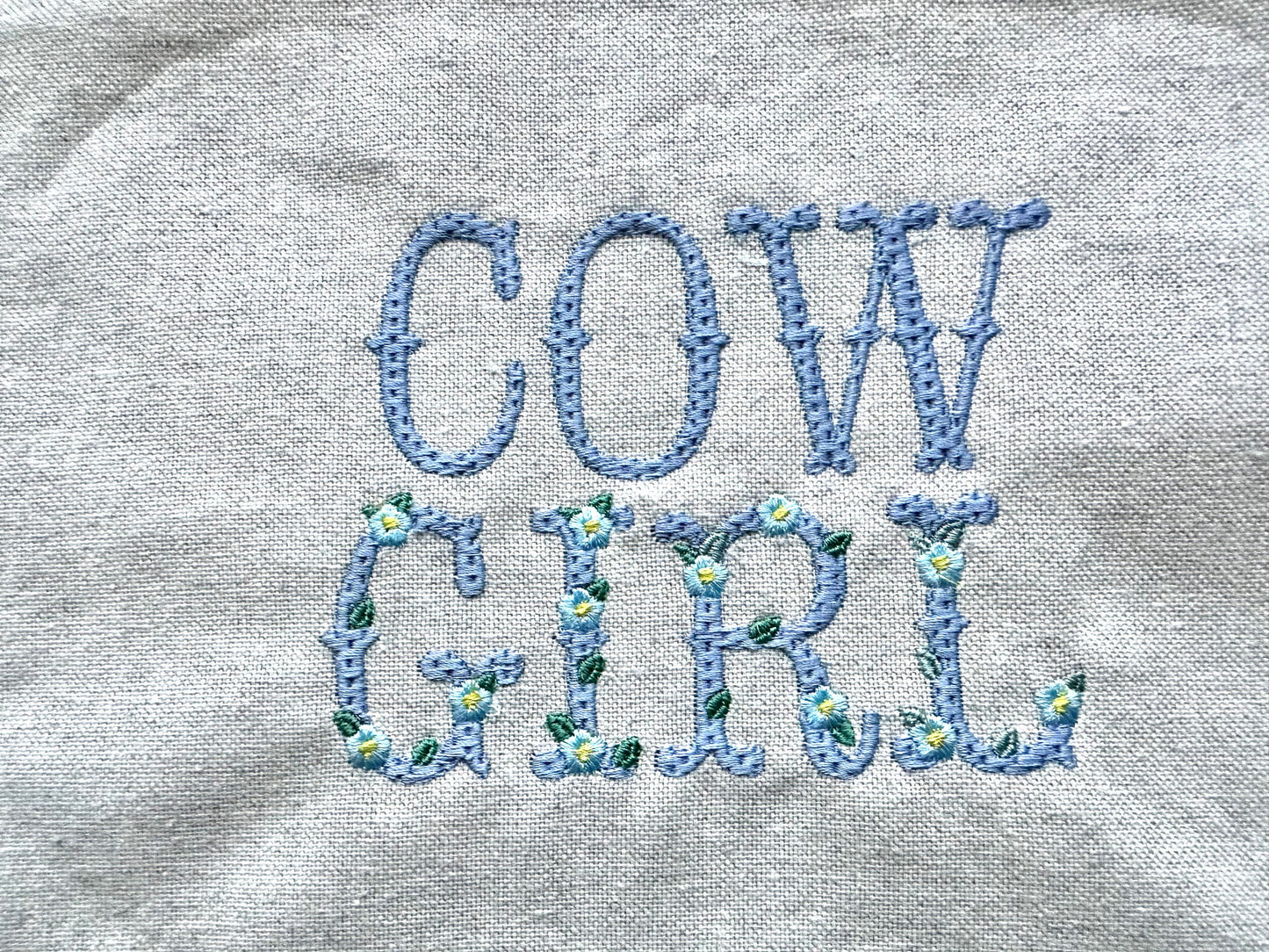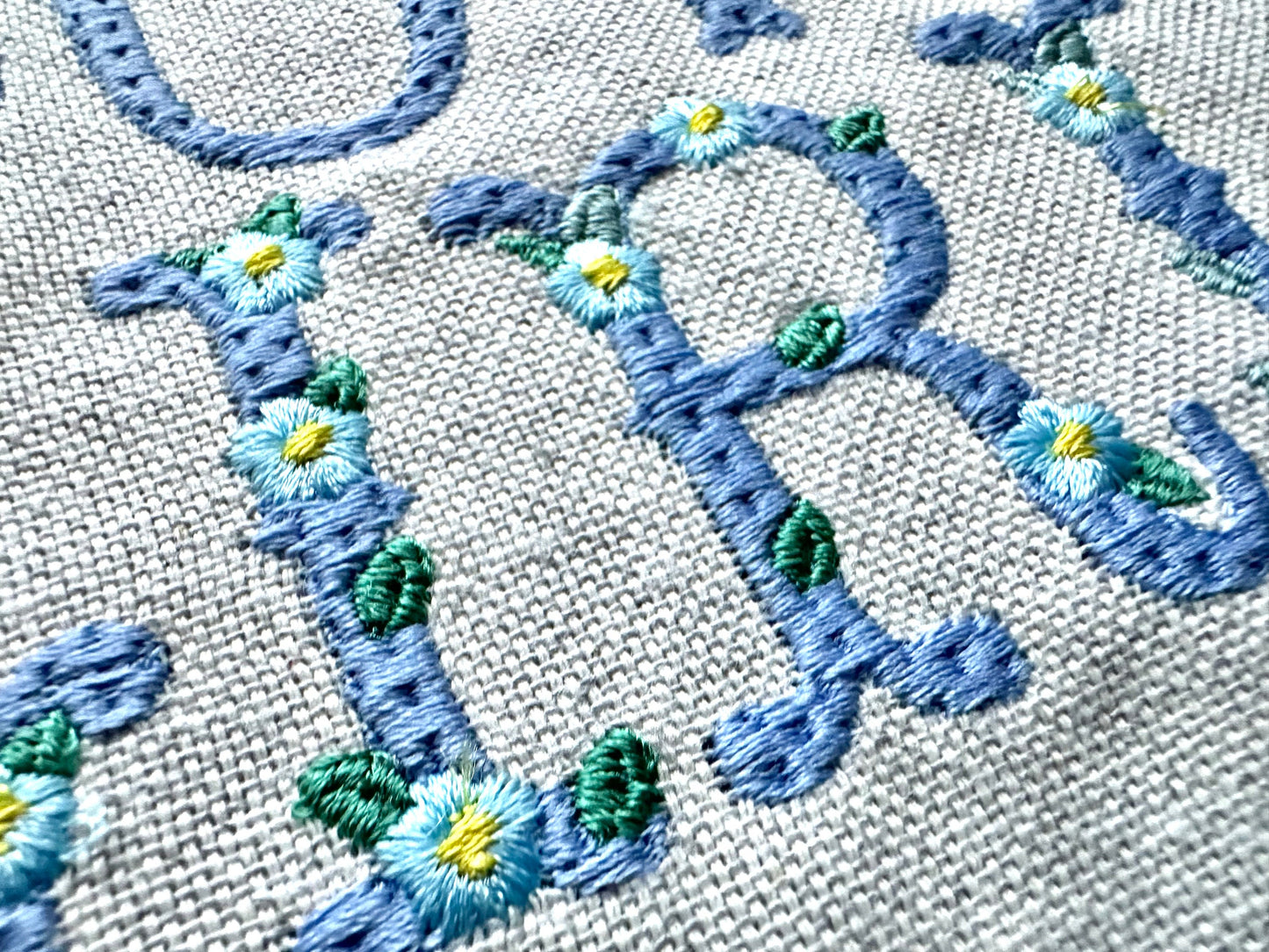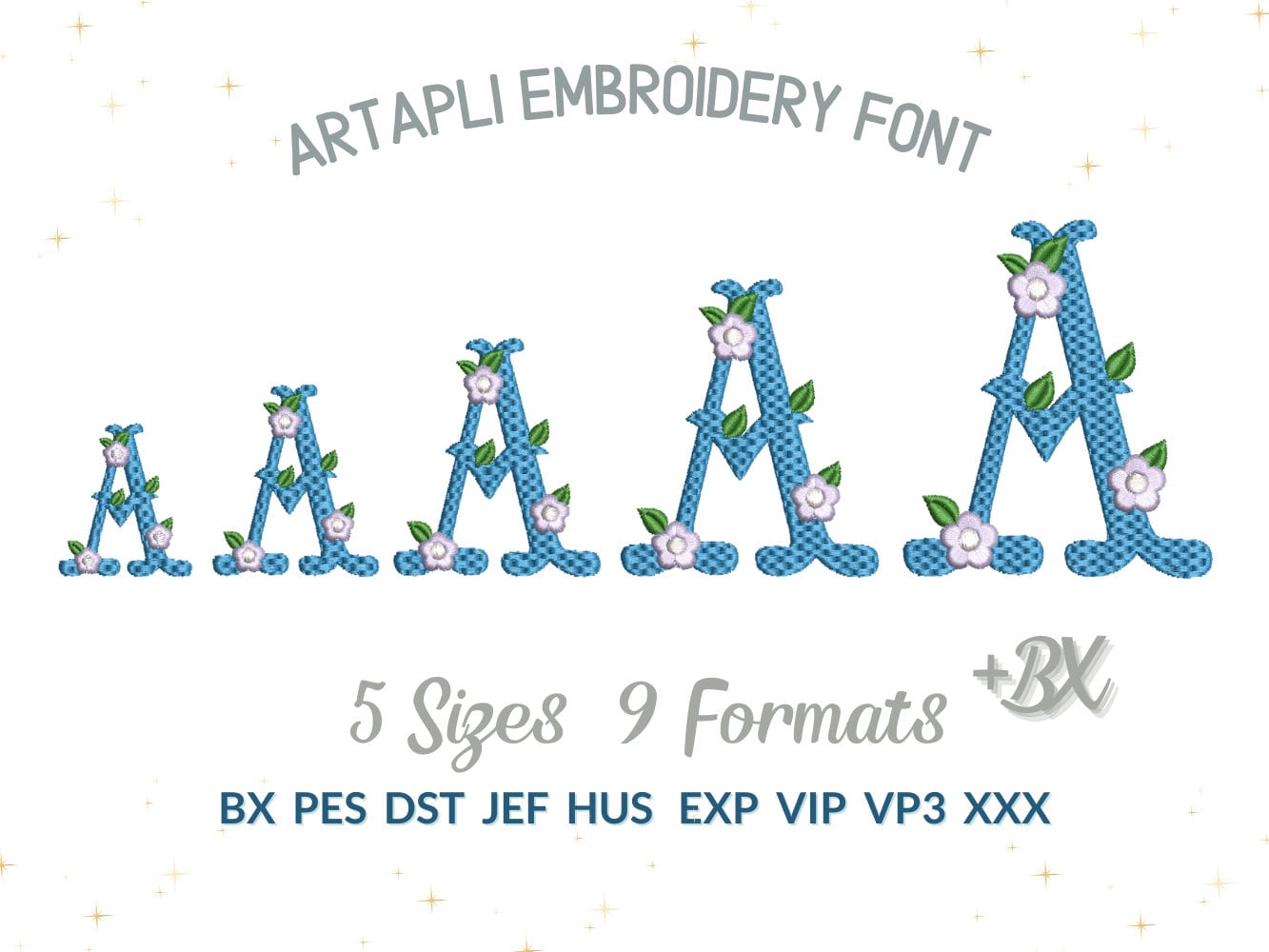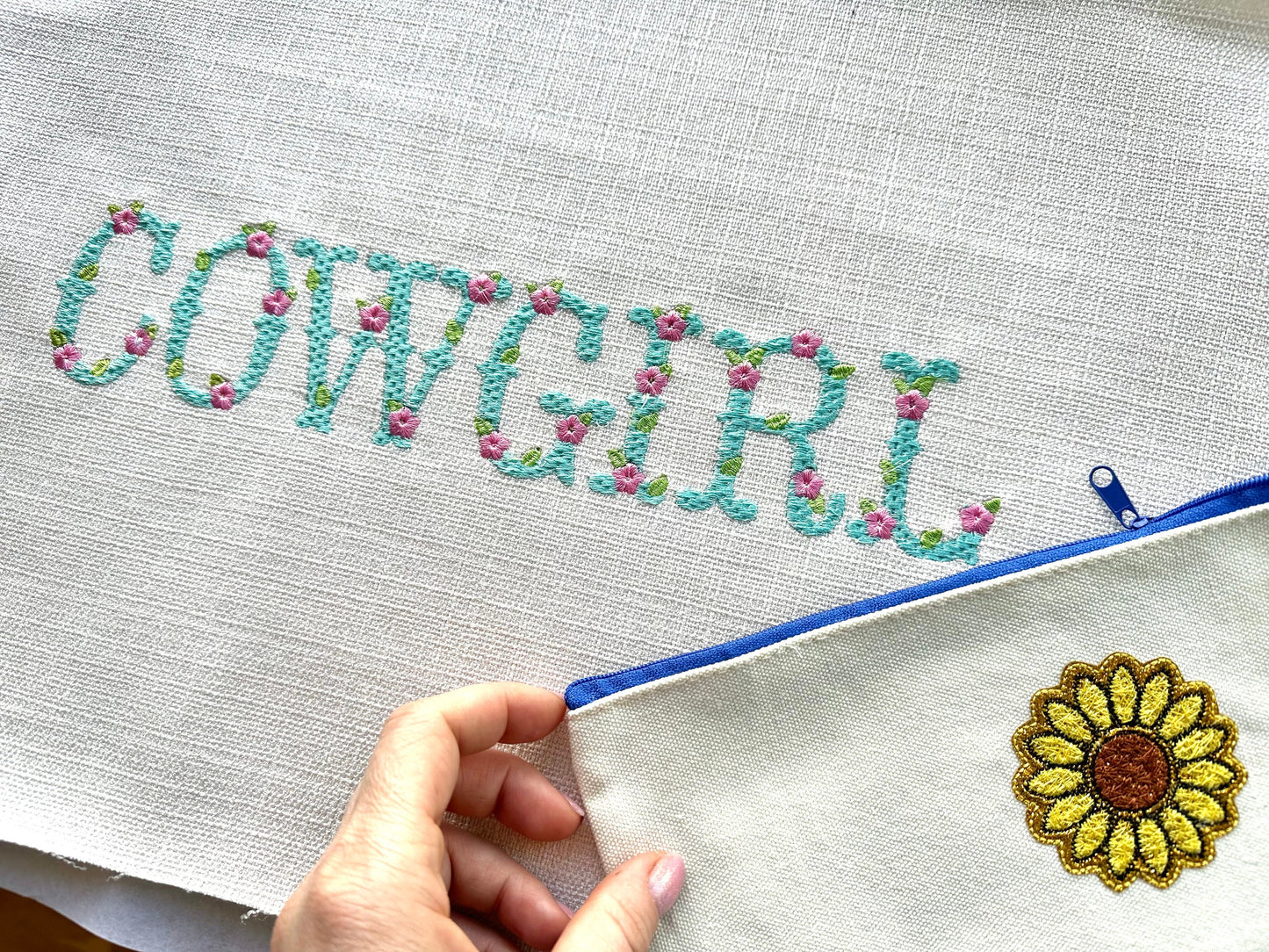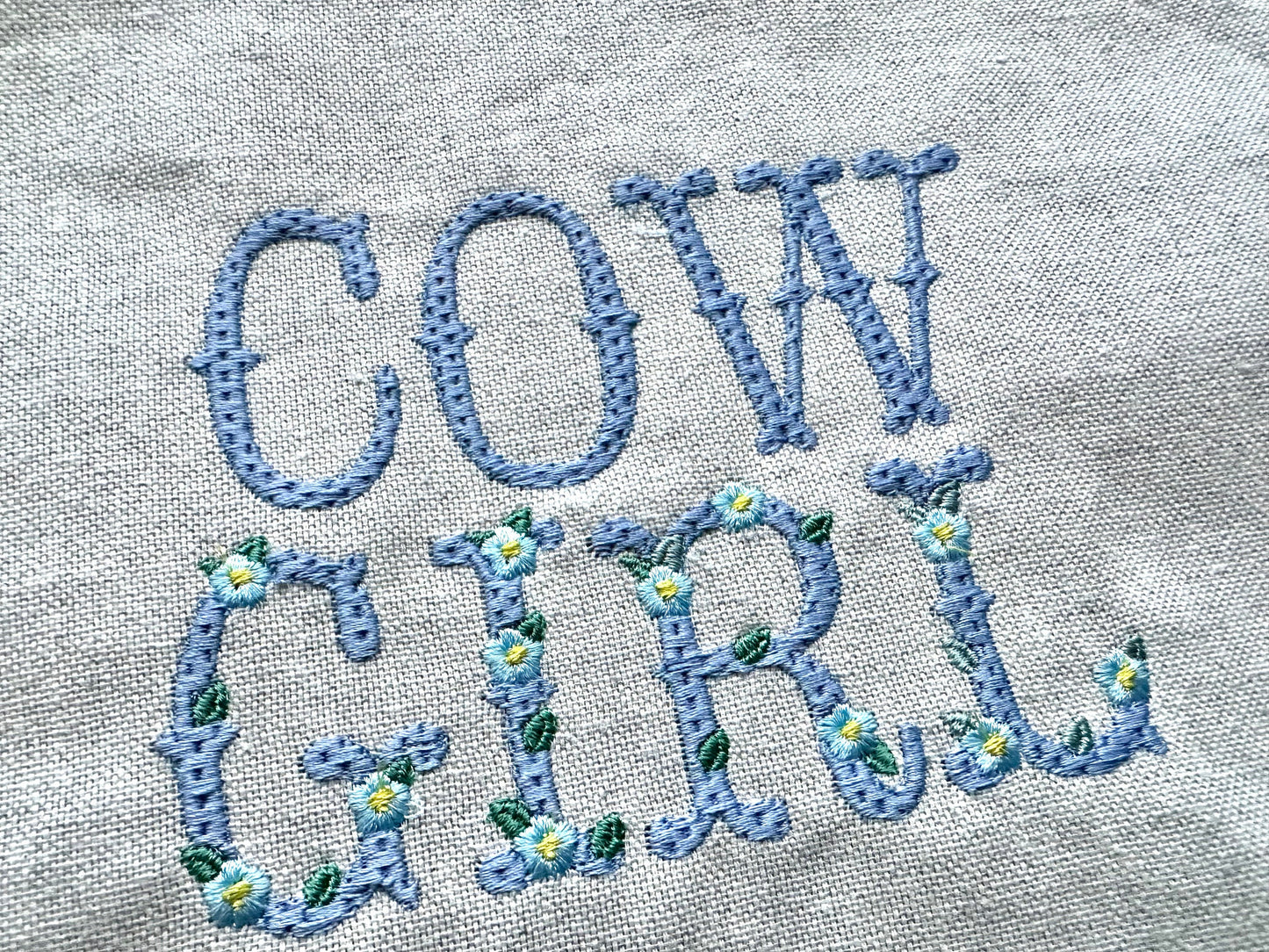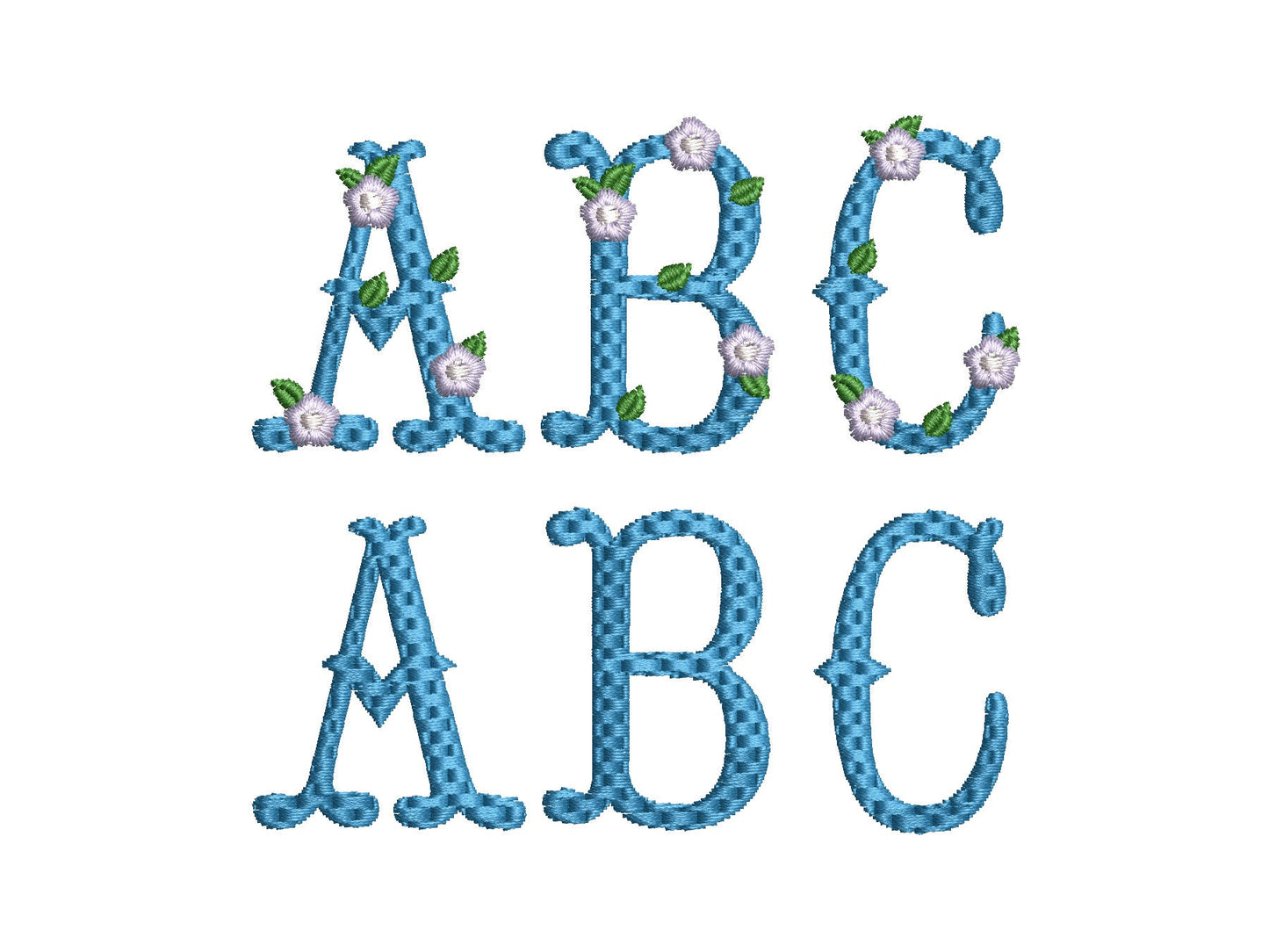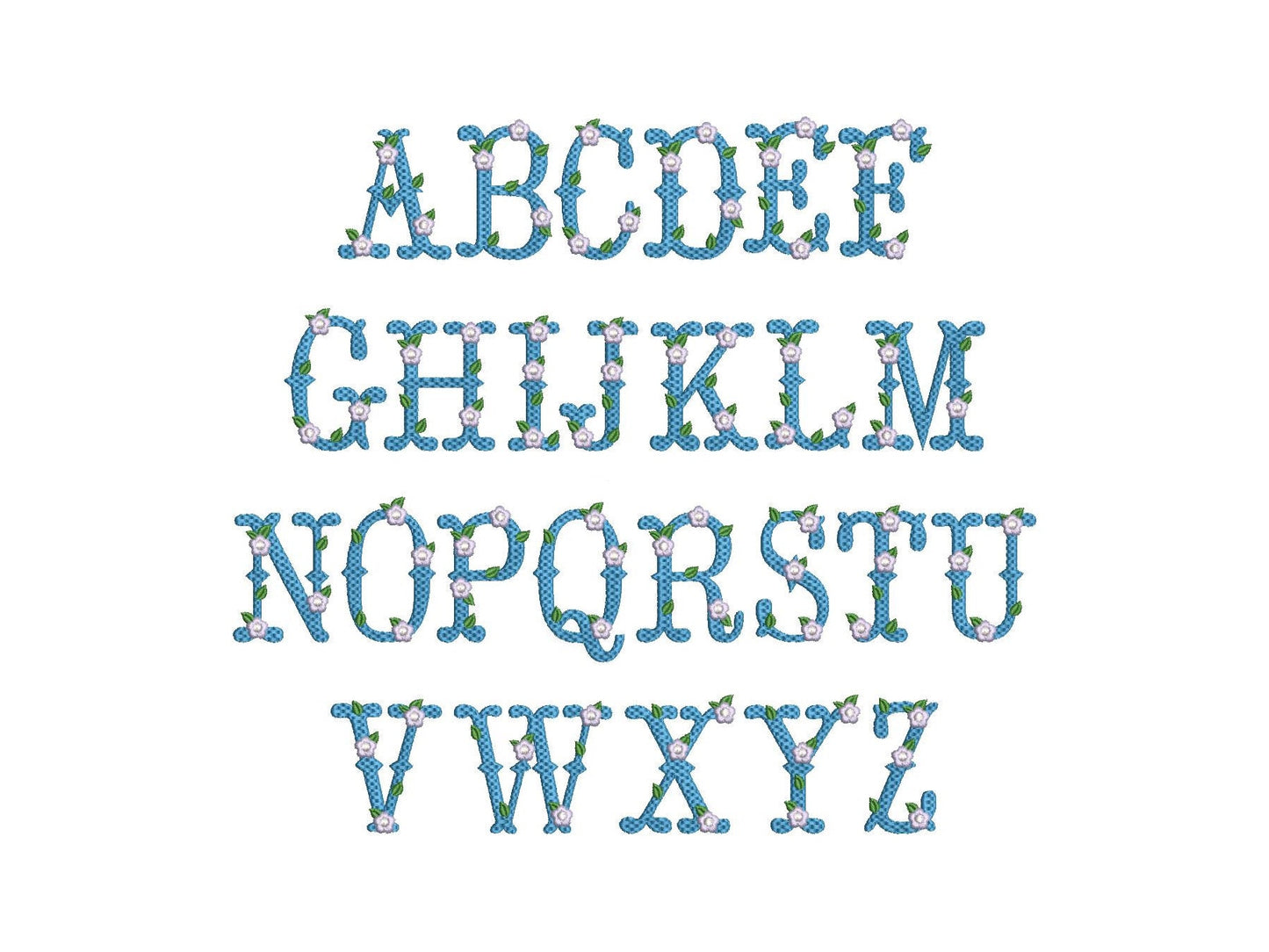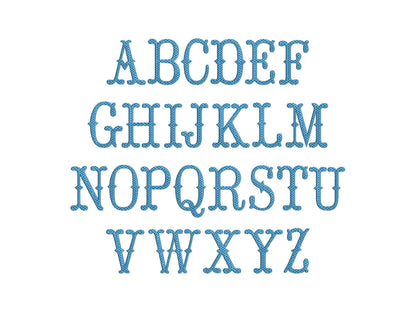
Or click to open the linkA set of two waffle stitch fishtail fonts: one with flowers and one plain. Lovely for monograms on pillows, towels, bags and gifts.
Both fonts have uppercase letters A to Z in the same five sizes: 2, 2.5, 3, 4 and 4.5 inches, so they are easy to mix. Textured waffle stitch fill.